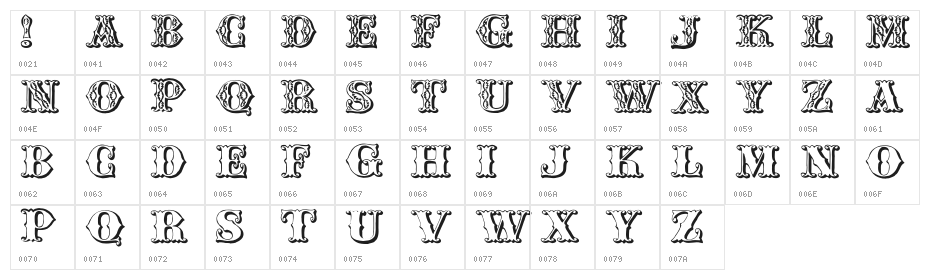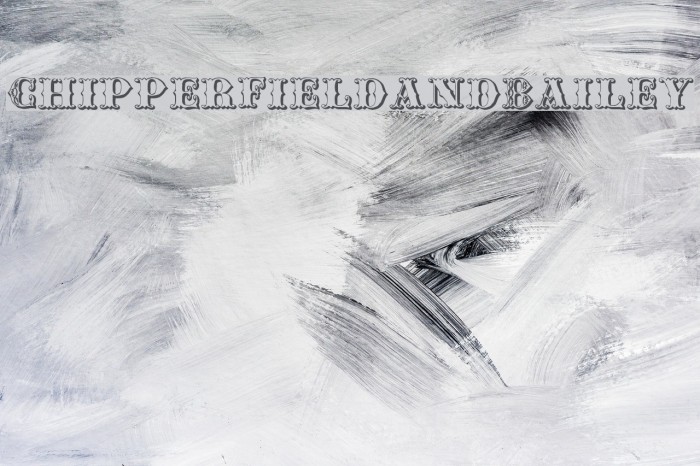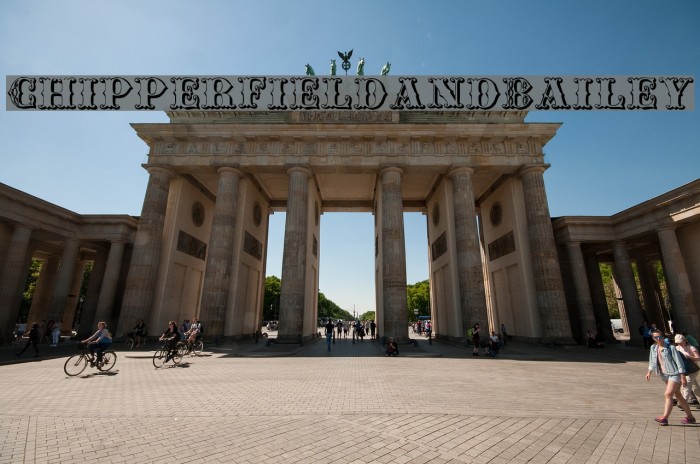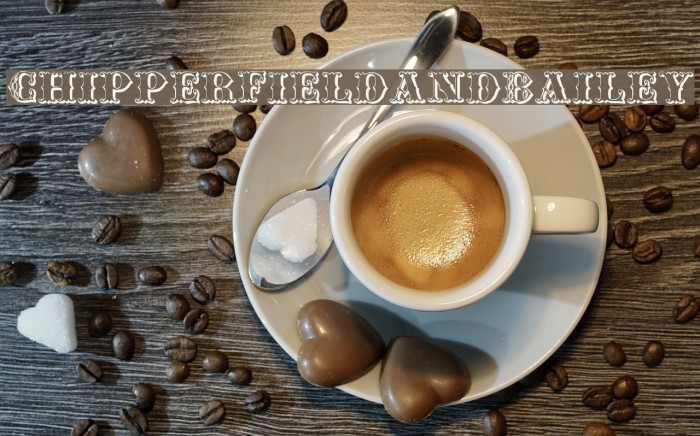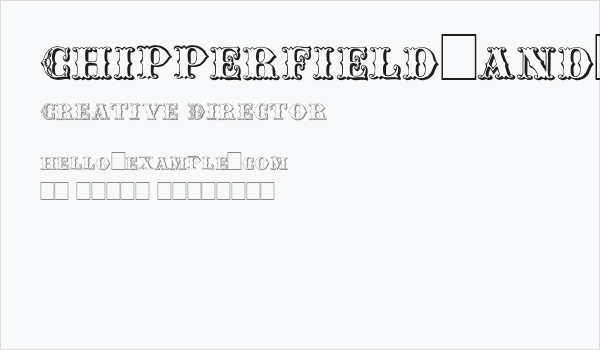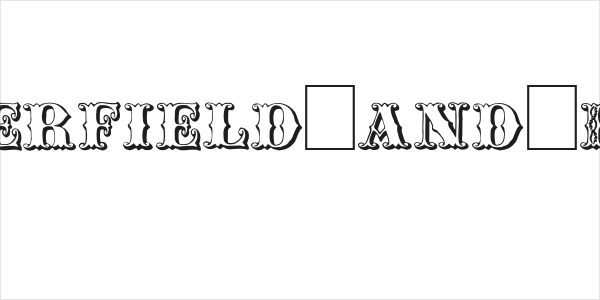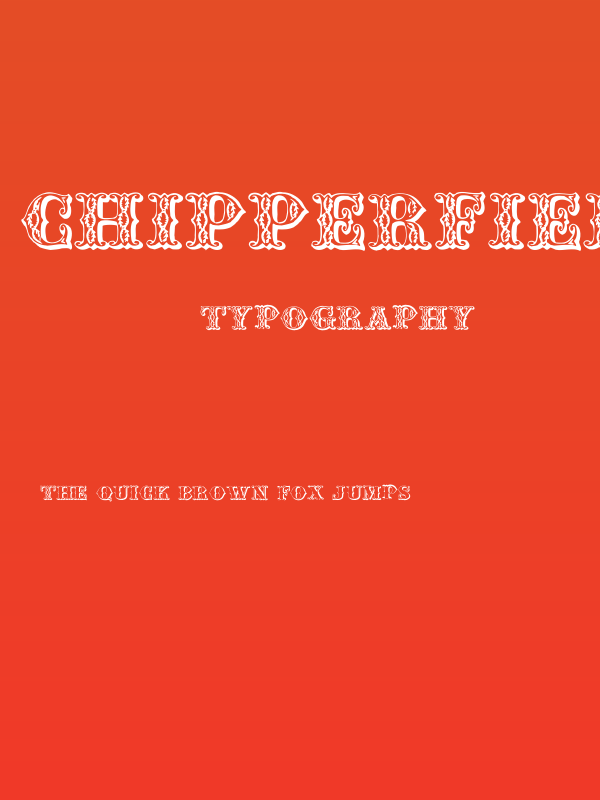
Chipperfield_and_Bailey Font
Chipperfield_and_Bailey Description
This font features an ornate and decorative style, characterized by intricate detailing and flourishes that give it a vintage and elegant appearance. The uppercase letters are bold and prominent, with each character adorned with unique embellishments that create a sense of grandeur. The lowercase letters maintain the decorative theme, offering a consistent aesthetic throughout. The numbers and special characters are equally ornate, ensuring a cohesive look across all text elements. This font is well-suited for projects that require a touch of sophistication and historical charm.
| Use Case | Headlines, Logos, Decorative text |
| Proposed Projects | Ideal for wedding invitations, vintage-themed posters, branding for luxury products, and decorative signage. |